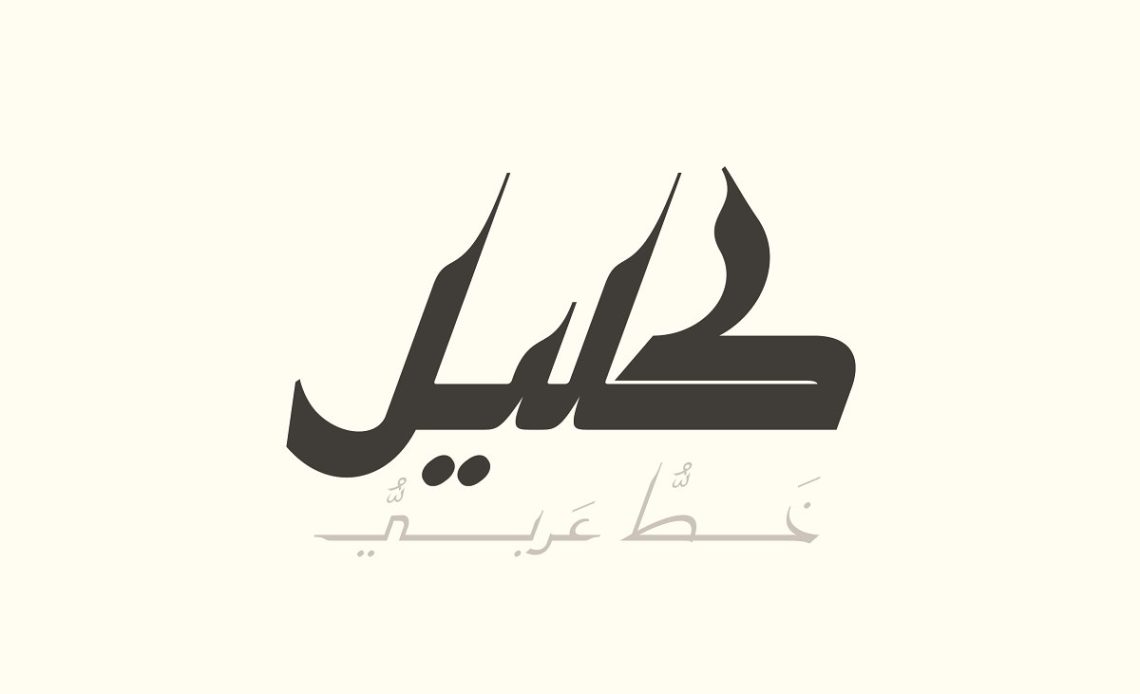
Introducing Kaleel - Arabic Typeface, the ultimate font collection that will elevate your designs to new heights. Created by the talented Mostafa Abasiry, this font family is guaranteed to captivate and inspire.
Drawing inspiration from the intricate calligraphic slip-painted pottery of the 10th Century, Kaleel is a true masterpiece. Its elegant and stylish design will instantly transport you to a world of timeless beauty and sophistication.
With four weights to choose from - Light, Regular, Bold, and Black - as well as a stylistic set, Kaleel offers endless possibilities for your creative projects. Whether you're designing for web or print, this font family is the perfect choice.
But what truly sets Kaleel apart is its wide language support. With full compatibility for Arabic, Persian, and Urdu, you can now effortlessly communicate your ideas in multiple languages. This makes Kaleel the best font for Farsi and a must-have for anyone looking to reach a diverse audience.